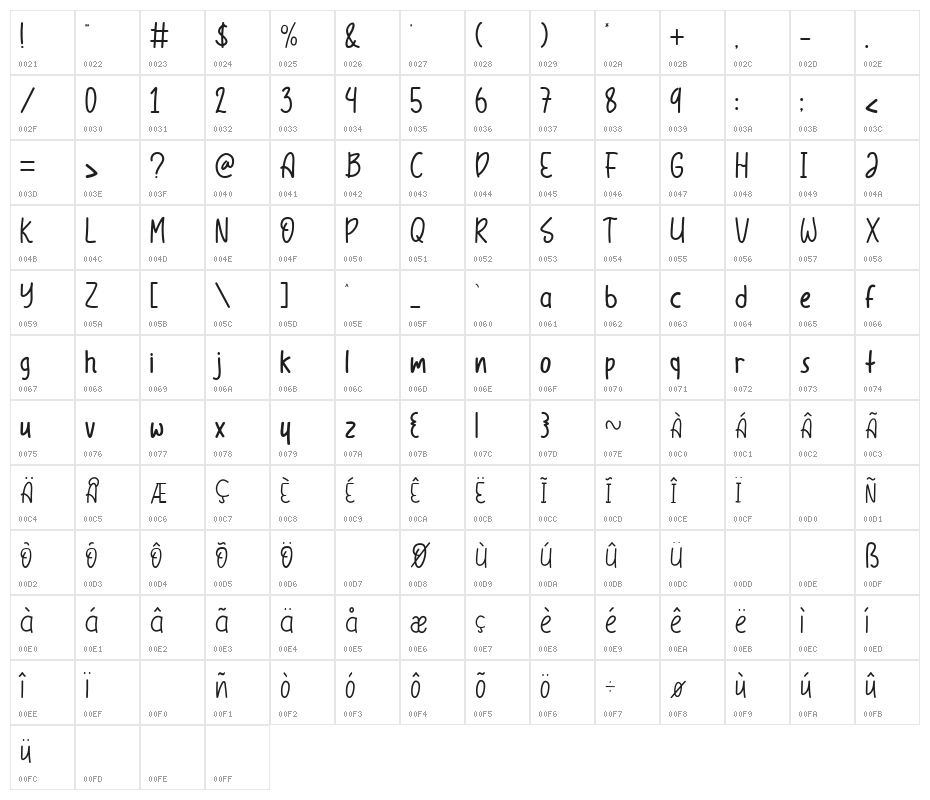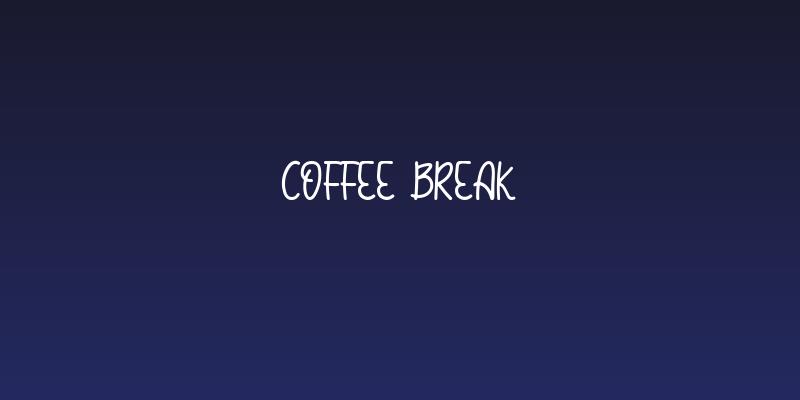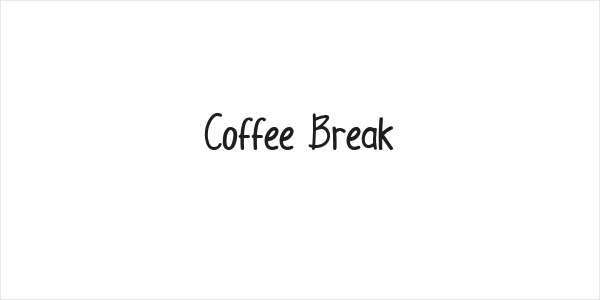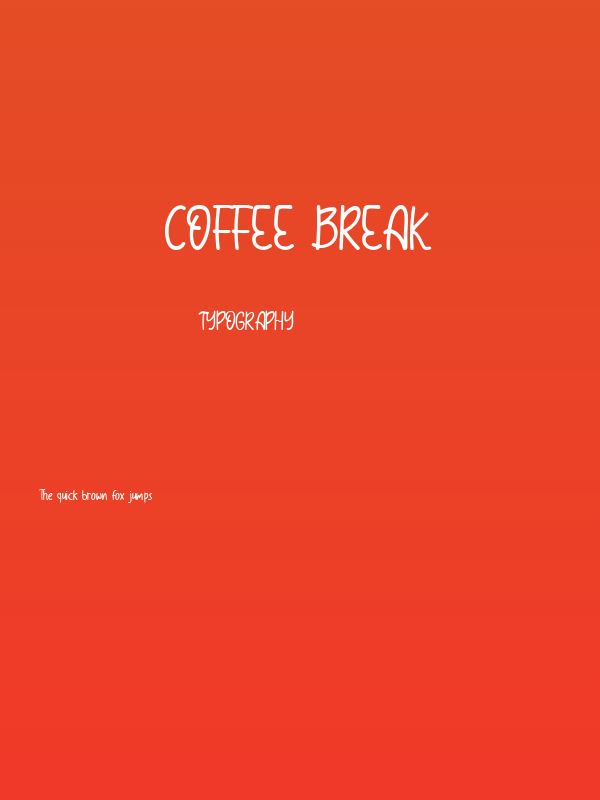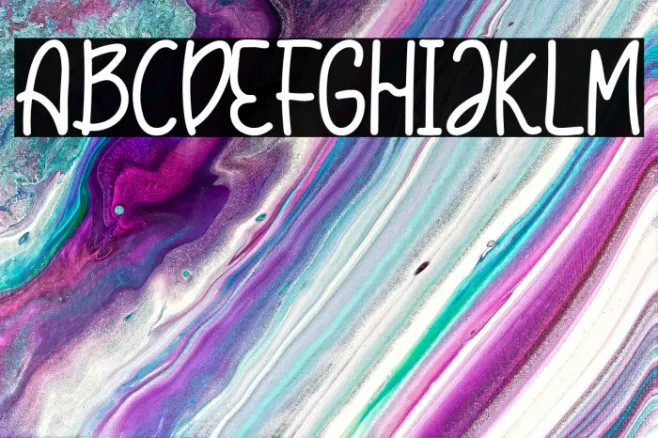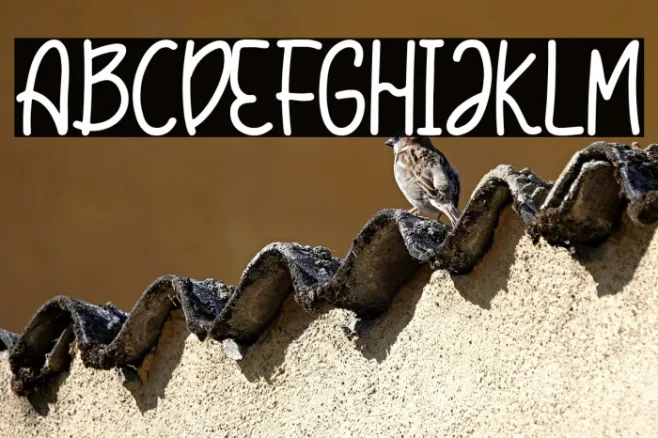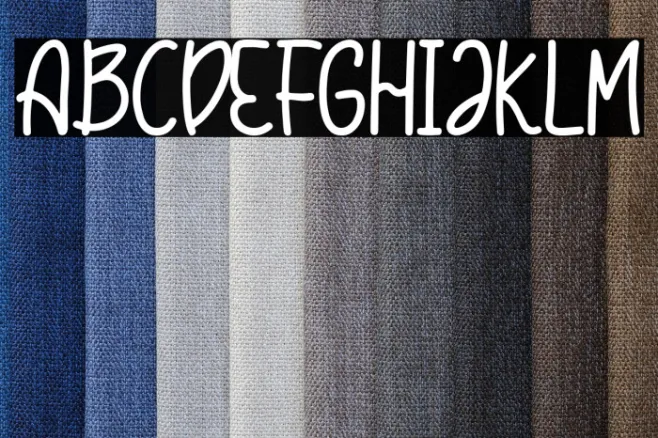
Coffee Break Font
Coffee Break Description
This playful and casual font features a handwritten style with a smooth, flowing appearance. The characters are slightly rounded, giving them a friendly and approachable feel. The uppercase letters are bold and prominent, while the lowercase letters maintain a consistent style with a slight slant, adding to the informal look. Numbers and special characters are well-integrated, maintaining the overall aesthetic. The font's design is versatile, suitable for projects that require a personal touch or a relaxed vibe.
| Use Case | Headlines, Informal text, Branding |
| Proposed Projects | Ideal for greeting cards, casual invitations, children's books, and playful branding. |